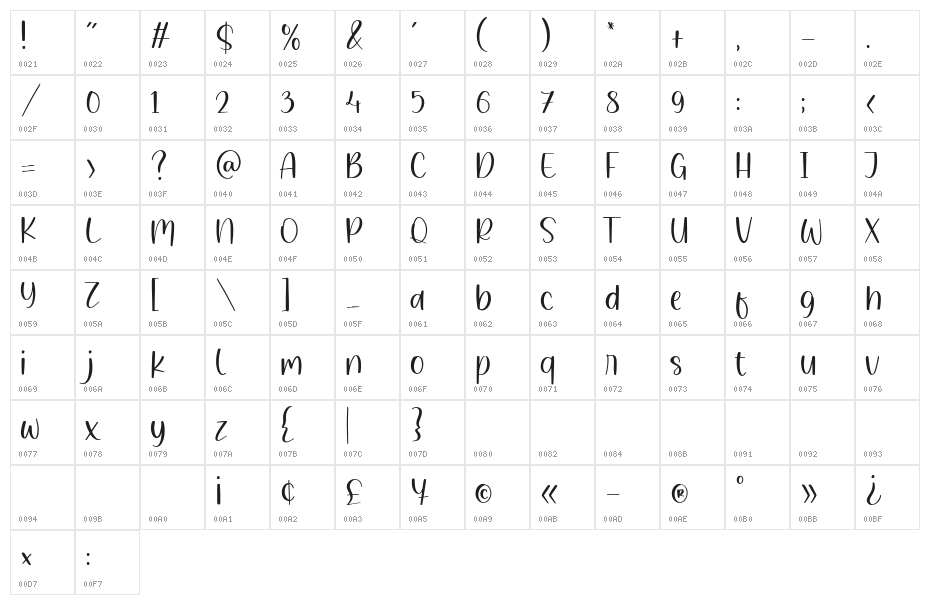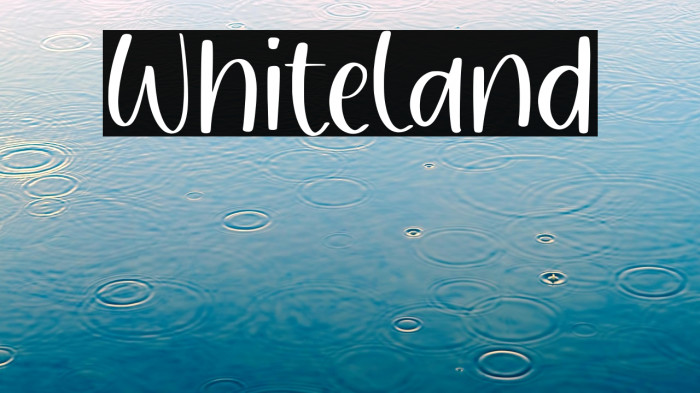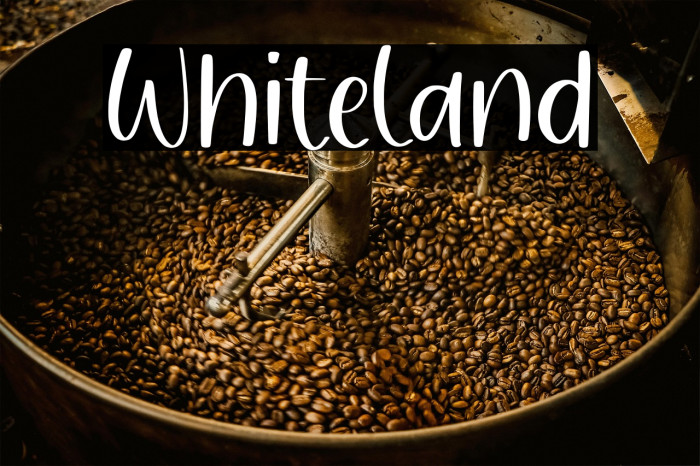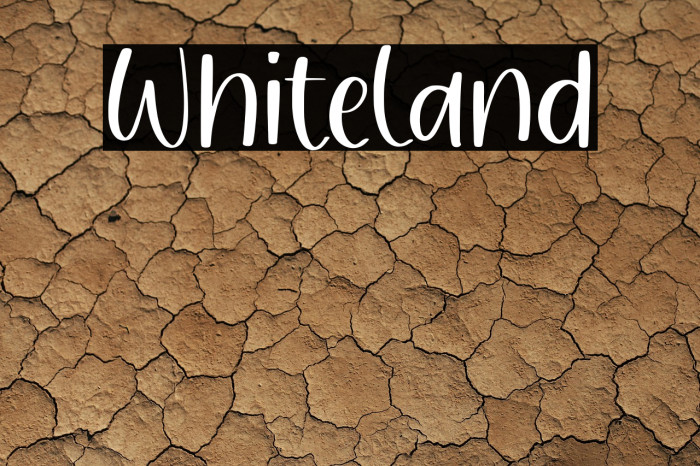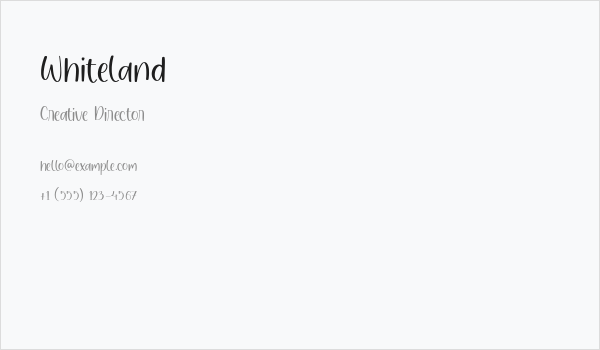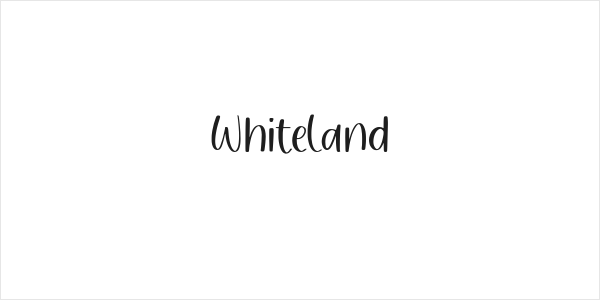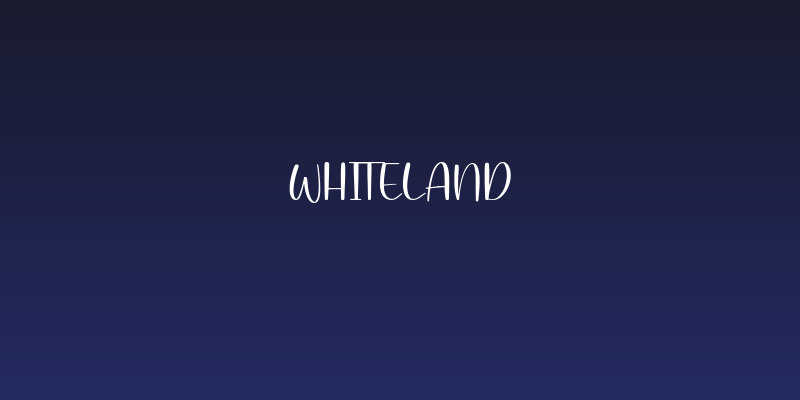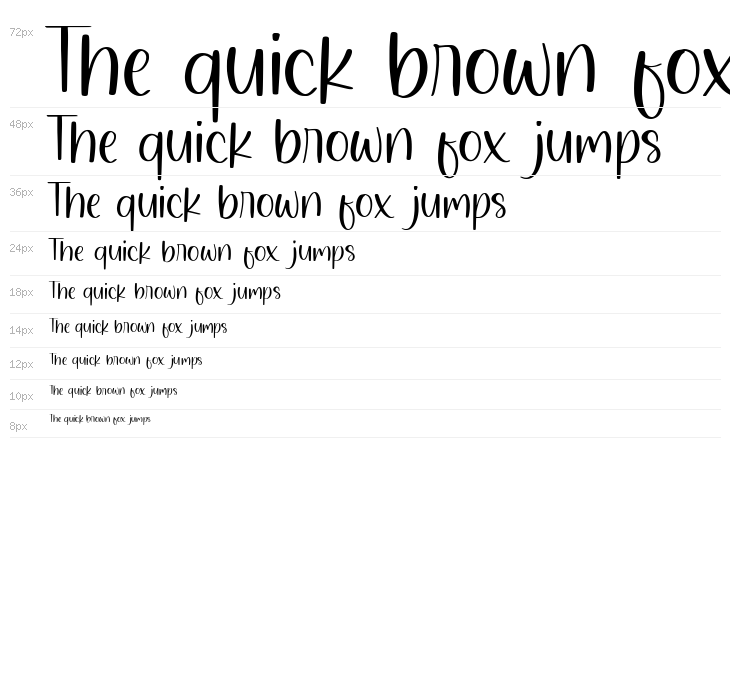
Whiteland Font
Whiteland Description
This font features a playful and flowing script style, characterized by its smooth, rounded edges and consistent stroke width. The uppercase letters are tall and slightly narrow, with a whimsical flair that adds a touch of elegance. The lowercase letters maintain a cohesive look, with gentle curves and a slight slant that enhances readability. Numbers and special characters are designed to match the overall style, ensuring a harmonious appearance across all text. The font's balanced proportions and artistic design make it suitable for a variety of creative applications.
| Proposed Projects | Ideal for wedding invitations, greeting cards, branding projects, and social media graphics. |